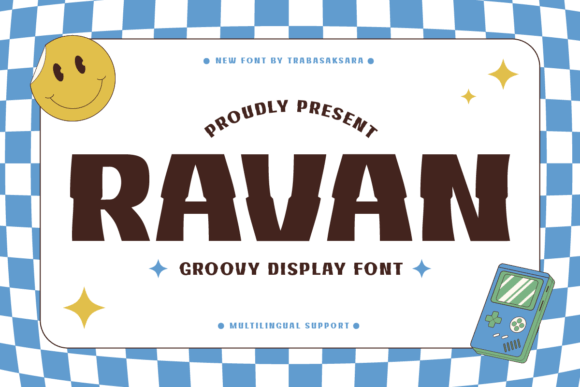
Introducing Ravan Font, a captivating display font that will add an unforgettable touch to your designs. Its sharp and angular edges exude a boldness that commands attention, making it the perfect choice for creating striking headlines, logos, and branding materials.
Ravan Font is the epitome of versatility, offering a range of weights and styles to accommodate any design aesthetic. Whether you seek a bold and dramatic statement or a more subdued elegance, this font has you covered. Its meticulously crafted geometric shapes and precise lines create a unique visual experience that sets it apart.
But Ravan Font is not just about aesthetics; it's also a font designed for practicality. Its clean lines and modern simplicity ensure readability, making it perfect for both display and body text. With Ravan Font, your designs will not only look stunning but also convey your message with clarity and precision.
Indulge in the edgy sophistication of Ravan Font and elevate your designs to new heights. Let its sharp lines and unique character make a lasting impression on your audience. Embrace the power of Ravan Font and create designs that are both impactful and unforgettable.